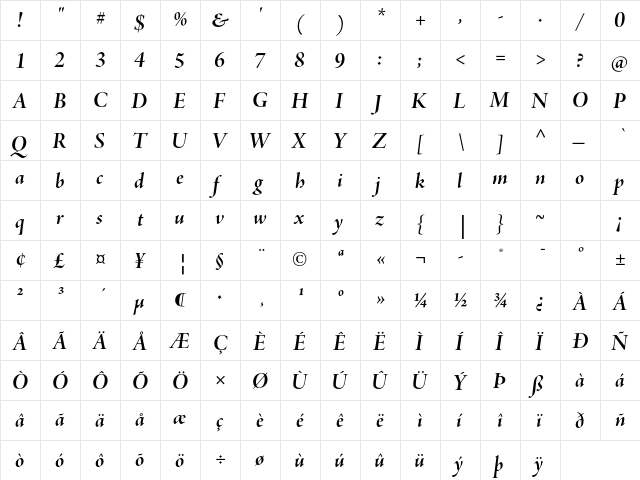
Adobe Jenson Pro Bold Italic Display Font Preview
| Designer | Robert Slimbach |
Design Context for Adobe Jenson Pro Typeface
Adobe Jenson Pro is built around its visual character rather than neutral utility — its distinctive forms are designed to make an impression at display sizes. Its italic angle brings a sense of urgency and motion to the letterforms. The heavy weight commands attention and anchors typographic hierarchies.
Font Pairing: Pair with a clean neutral sans-serif for body copy to let Adobe Jenson Pro's character lead without overwhelming the composition.
Pro Tip: Treat Adobe Jenson Pro as the centrepiece of your typographic hierarchy. One strong heading set in a decorative face can carry an entire layout.